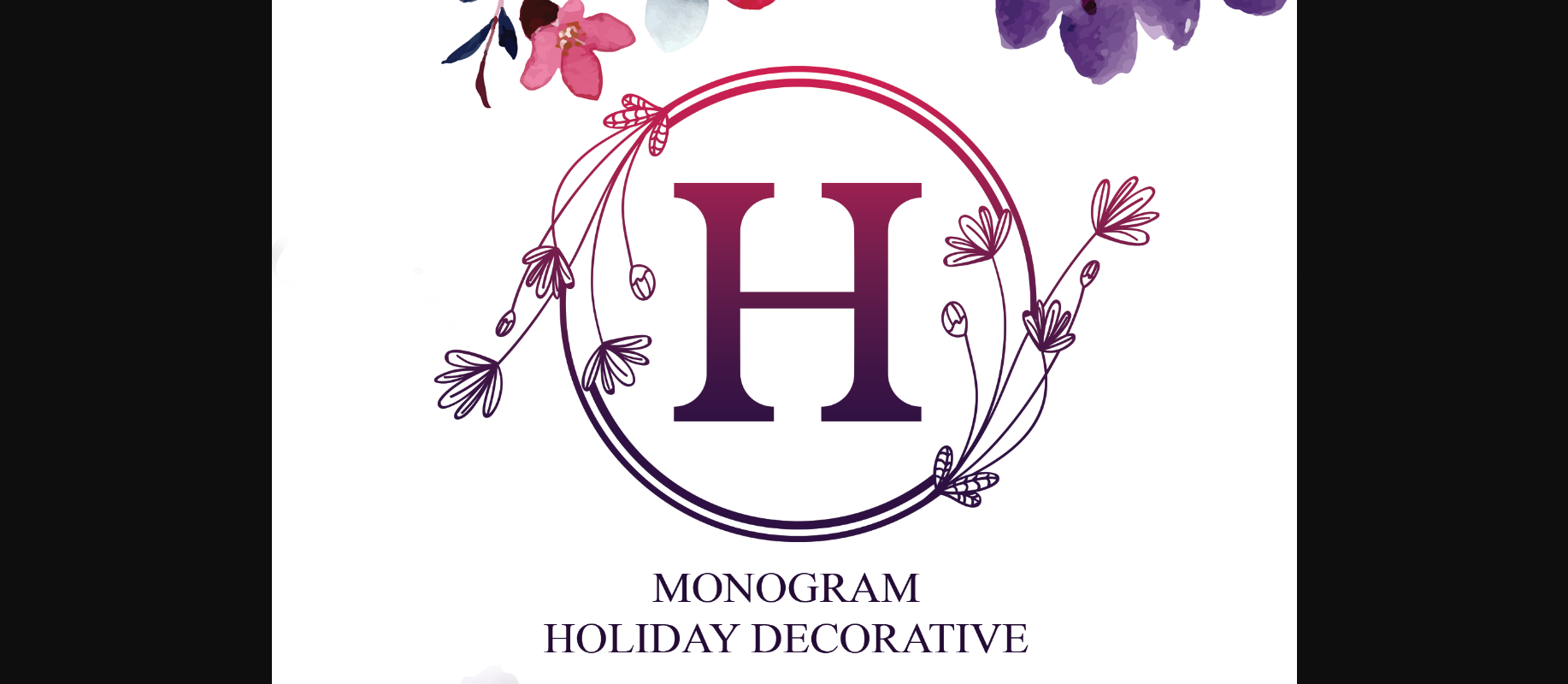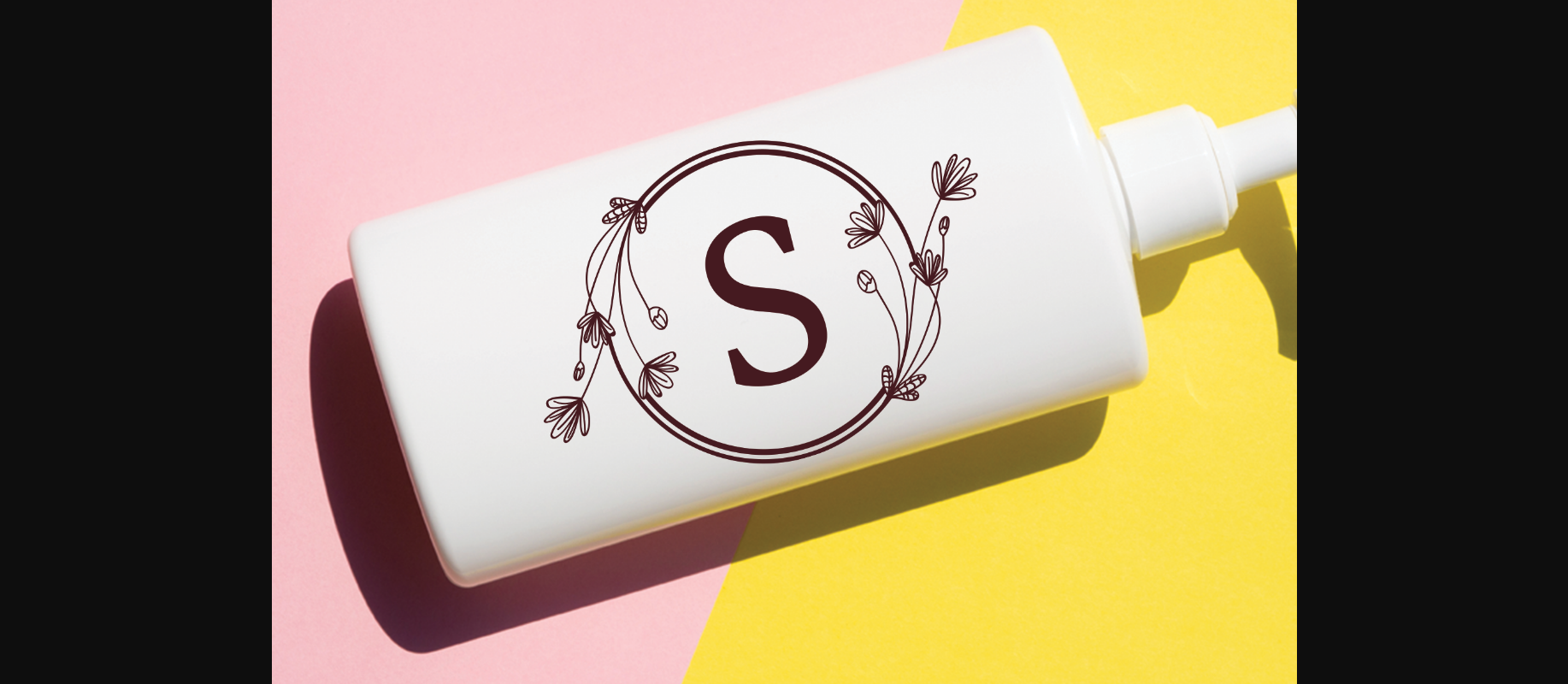
About Holiday Font
Holiday is a chic and highly detailed decorative font. Add this romantic and lovely looking font to each of your love letters, wedding invitations or favorite design ideas, and you will be astounded by the outcome.